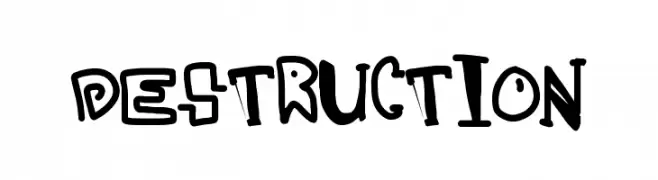
A geometric, futuristic font with clean lines and a grid-like structure.
A modern, geometric font with a futuristic and structured design.
A playful and quirky font with exaggerated curves and angles.
A geometric, zigzag-patterned font with a bold and artistic style.
A segmented, geometric font inspired by classic LCD digital displays.
A modern, striped font with a geometric and bold design.
A bold, geometric font with a retro disco vibe.
A clean, modern sans-serif font with geometric influences and uniform structure.
A bold, geometric font with a modern, industrial style.
A playful, hand-drawn font with a doodle-like appearance and bold outlines.